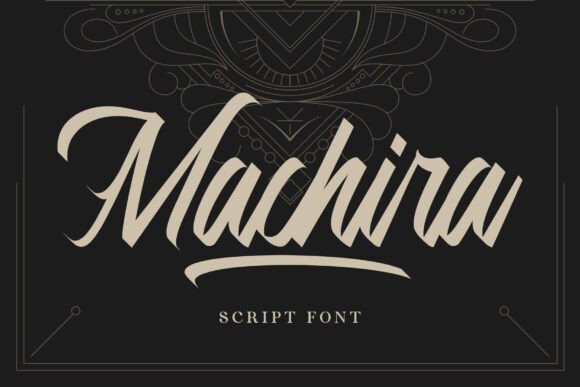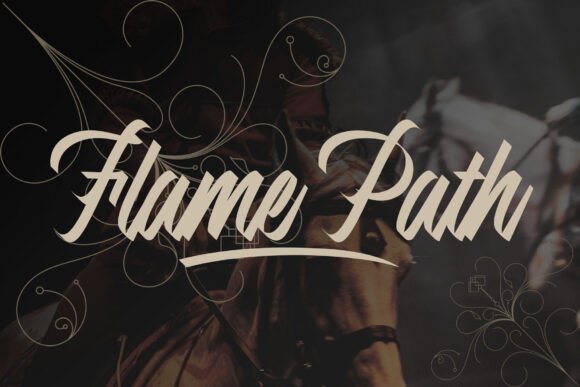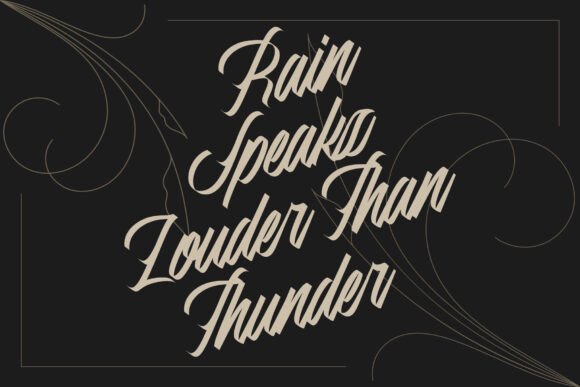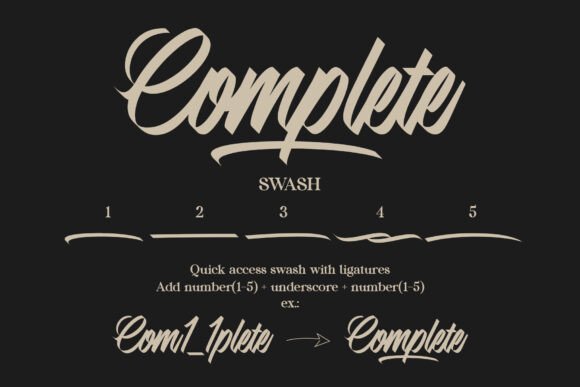
Machira Font: Elegant Script Font for Inspiring Logo Design
About the Machira Font
Elevate your designs with Machira Font, a font that combines sophistication with readability. Machira is a script font that blends classic character with a modern touch. Designed with bold strokes and sharp curves, Machira brings a dramatic yet elegant feel, perfect for branding, headlines, posters, logos, and packaging designs that aim to stand out.
Machira excels in applications requiring strong visual impact, such as headlines, logos, and short-form text on packaging or posters. Its bold strokes command attention, making it ideal for luxury brands or products aiming for a sophisticated, dramatic presence. However, its elegant flourishes and high x-height are less suitable for body text or UI elements where readability over extended lengths is paramount.
Pairing Machira effectively involves balancing its strong personality. A clean sans-serif like Montserrat or a geometric sans-serif like Futura would provide a sharp, modern counterpoint, creating a striking yet balanced aesthetic. For a warmer feel, consider pairing it with a serif like Garamond or Didot, which would complement its classic influences while adding a sense of refined tradition.
Machira’s overall personality is best described as dramatic elegance. It projects confidence and sophistication, making it suitable for brands that prioritize a strong visual identity and wish to convey a sense of luxury or exclusivity. Avoid using it in contexts requiring a friendly or informal tone.
Machira Font Usage Examples
Machira Font Example